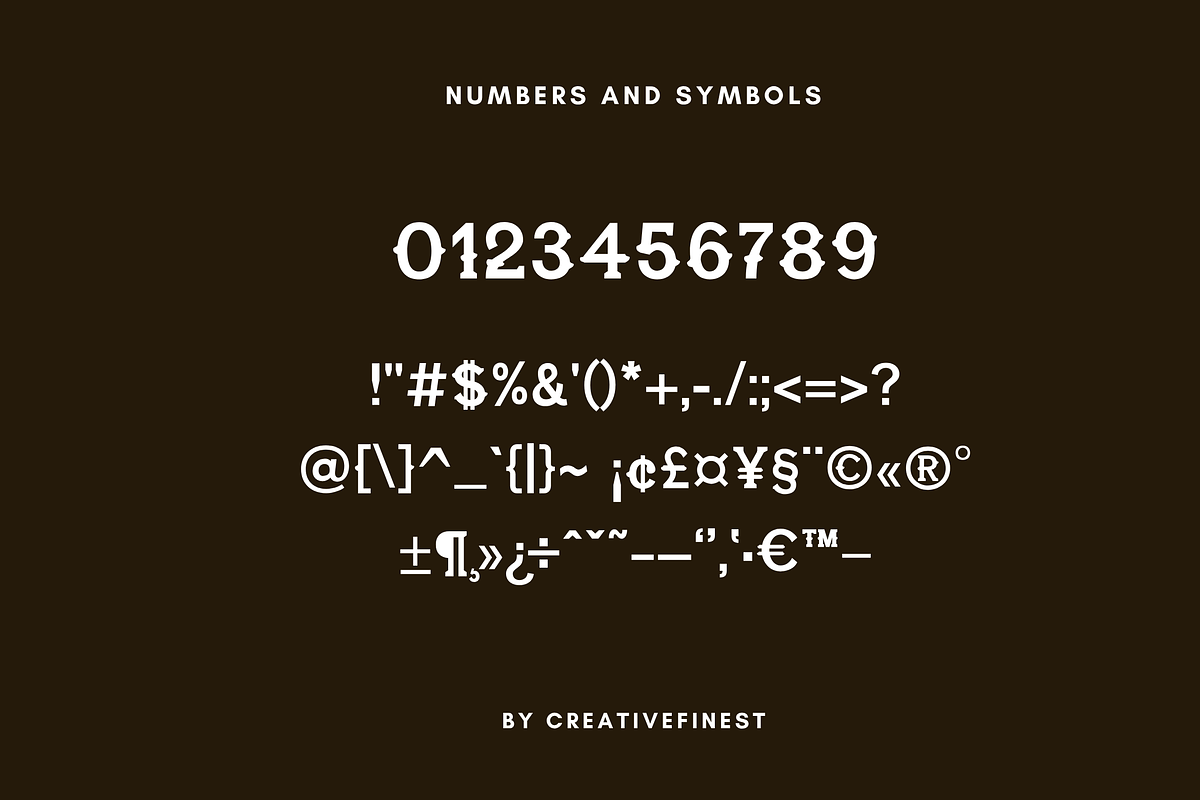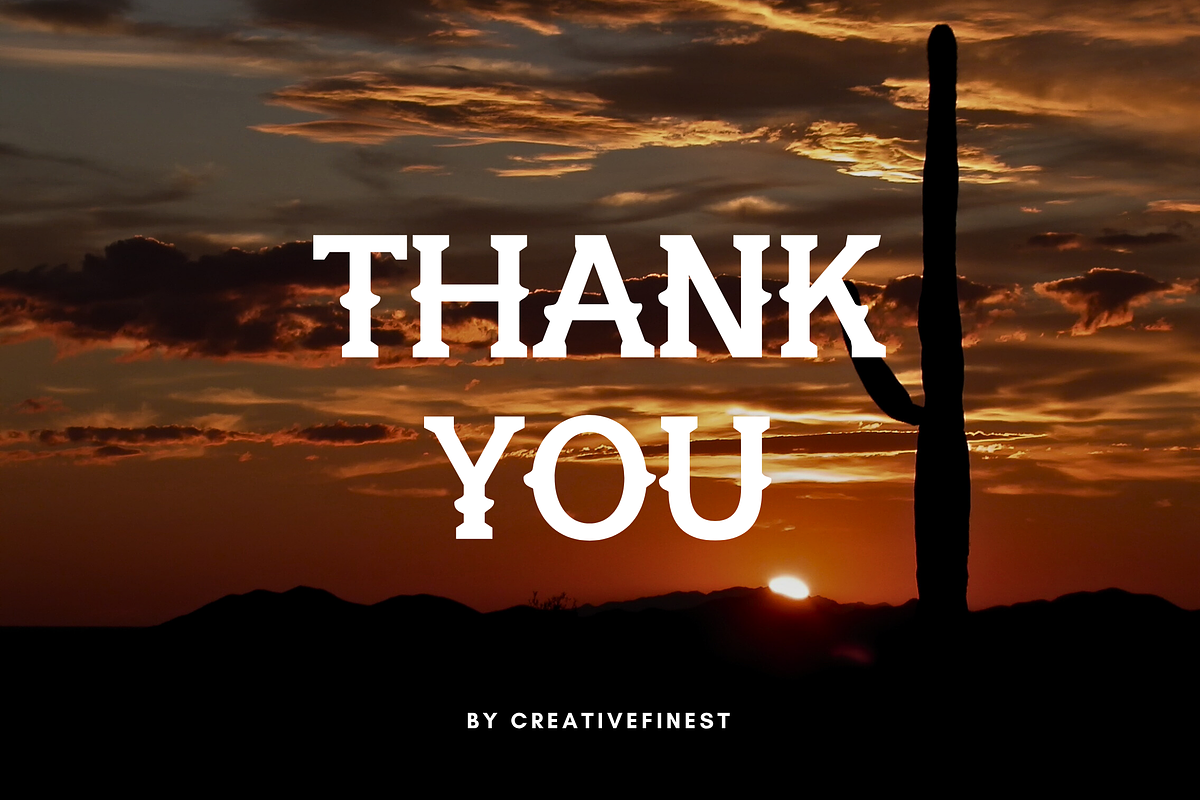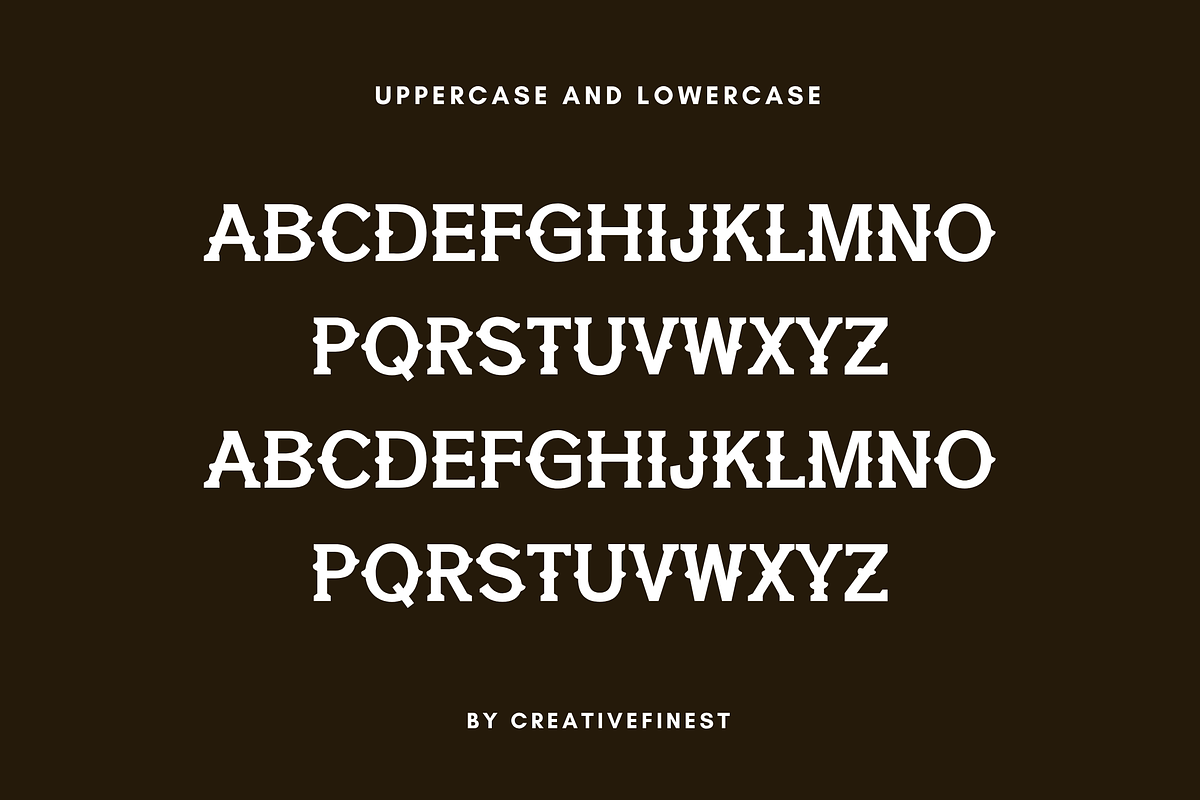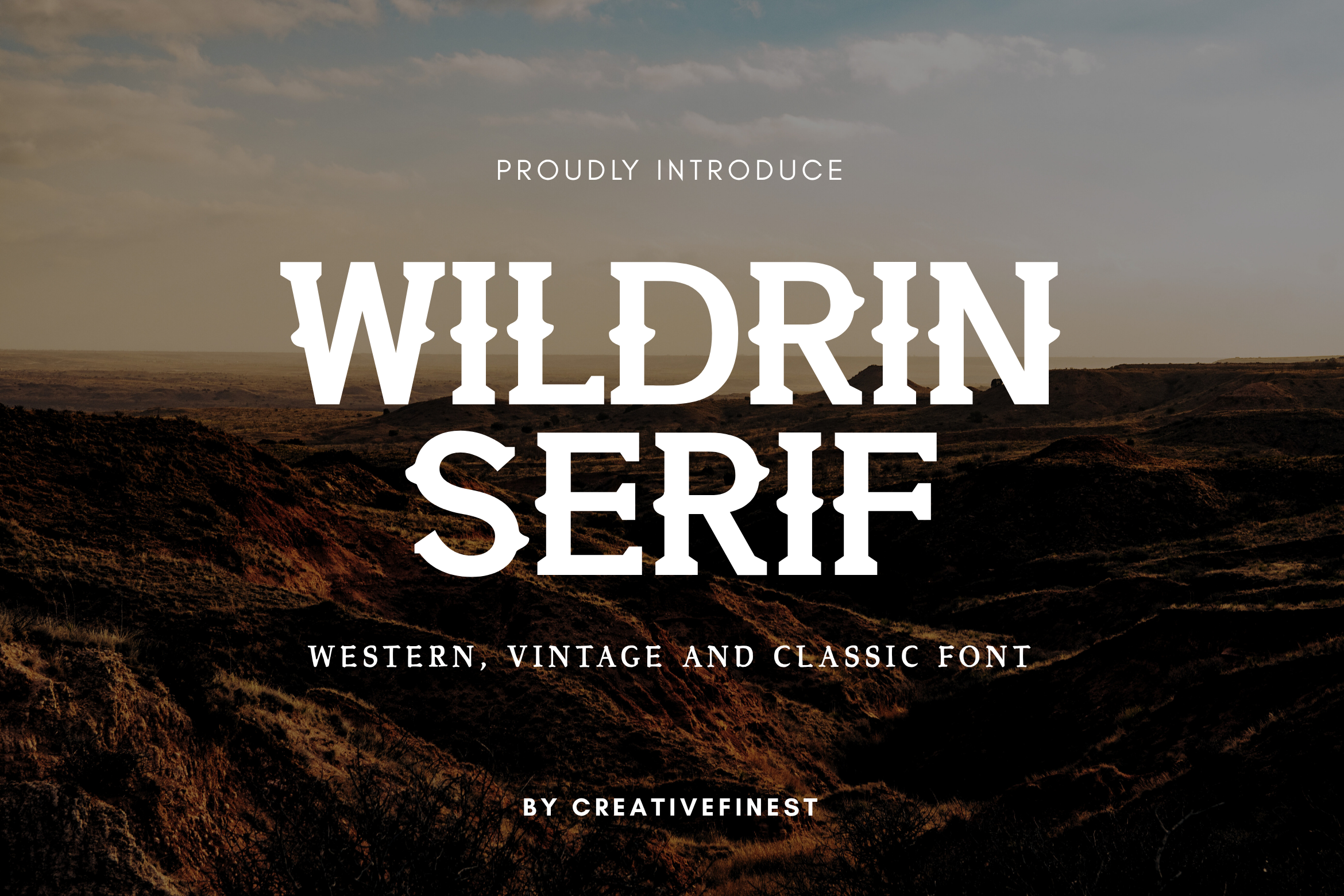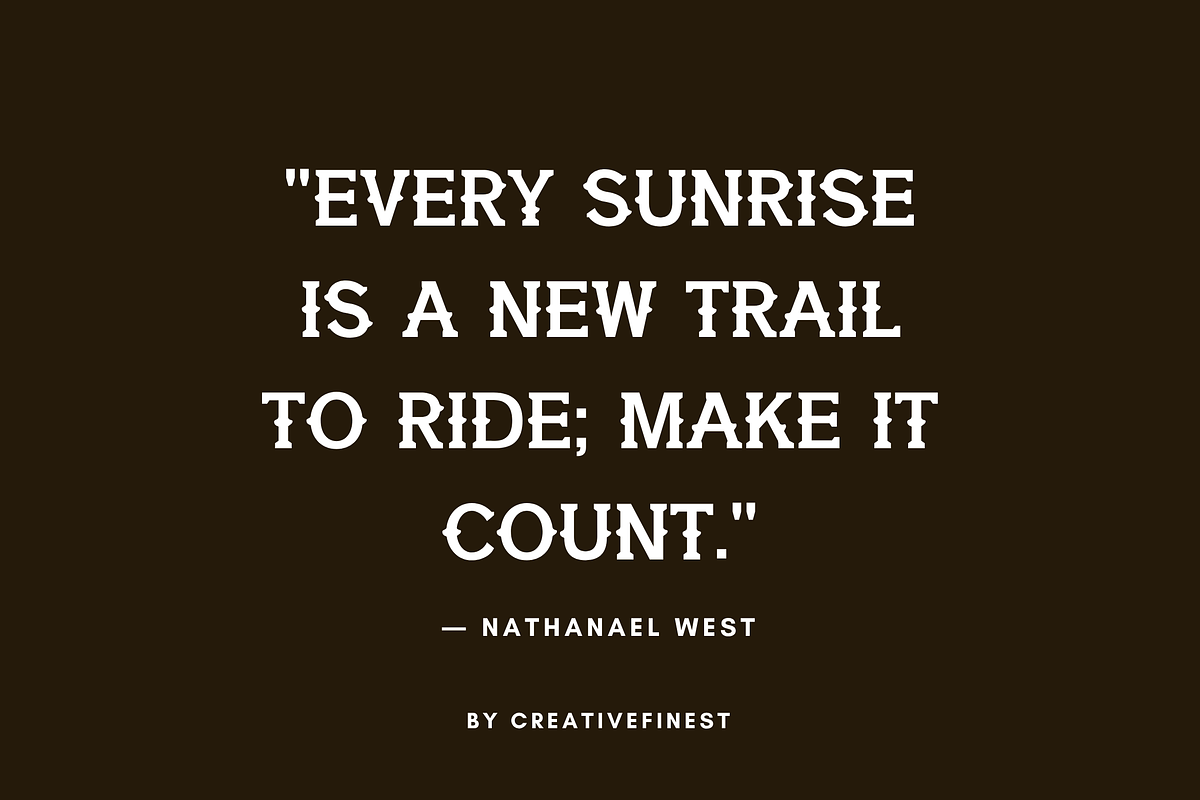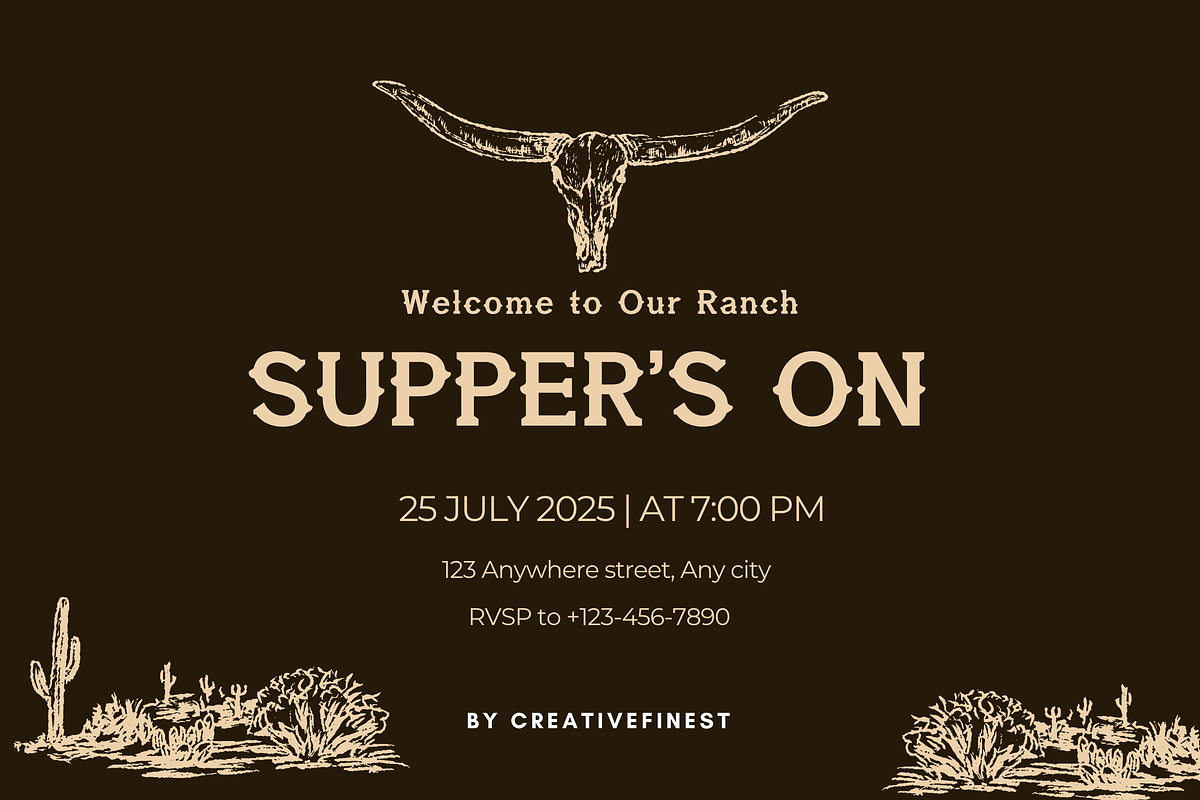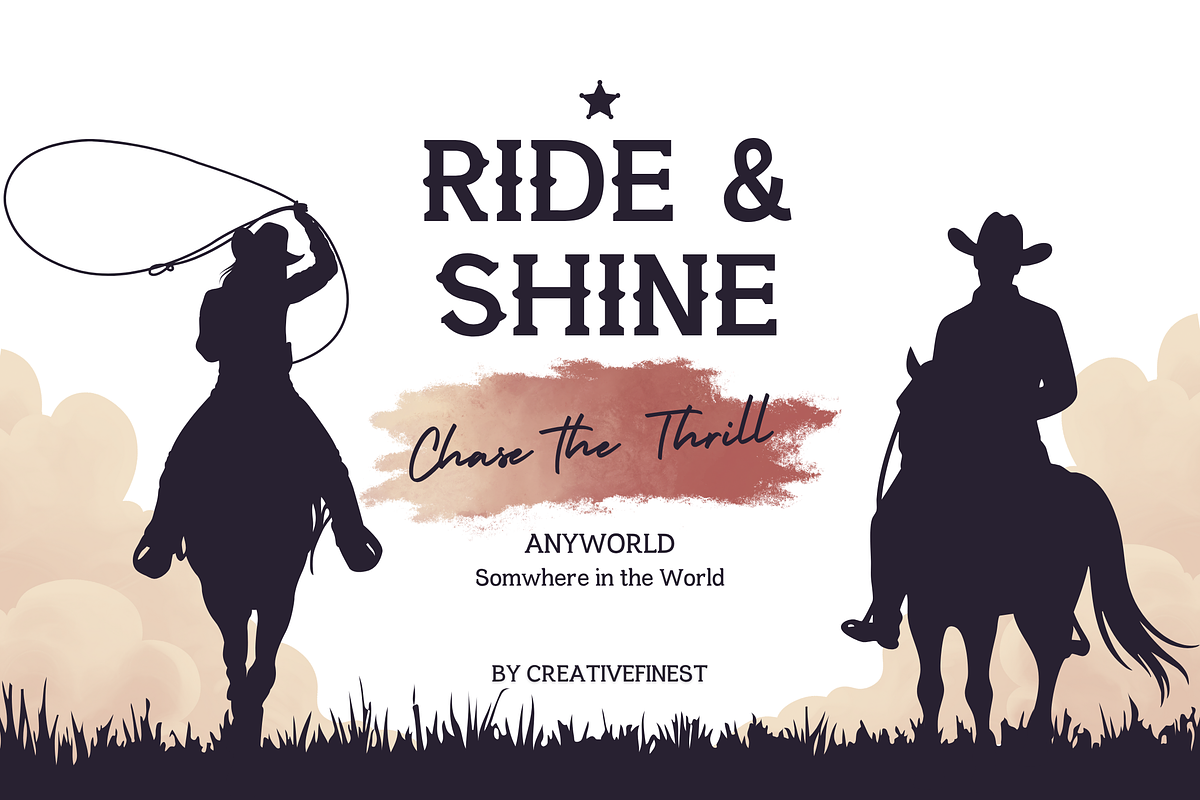
Wildrin Serif – Western Font
Wildrin Serif brings bold Western spirit and vintage elegance to every project. Inspired by the wild frontier, this font features strong, standout letterforms perfect for making a statement.
- Great for logos, posters, headlines, branding, and packaging
Let your designs ride into the sunset with the confident, adventurous style of Wildrin Serif.